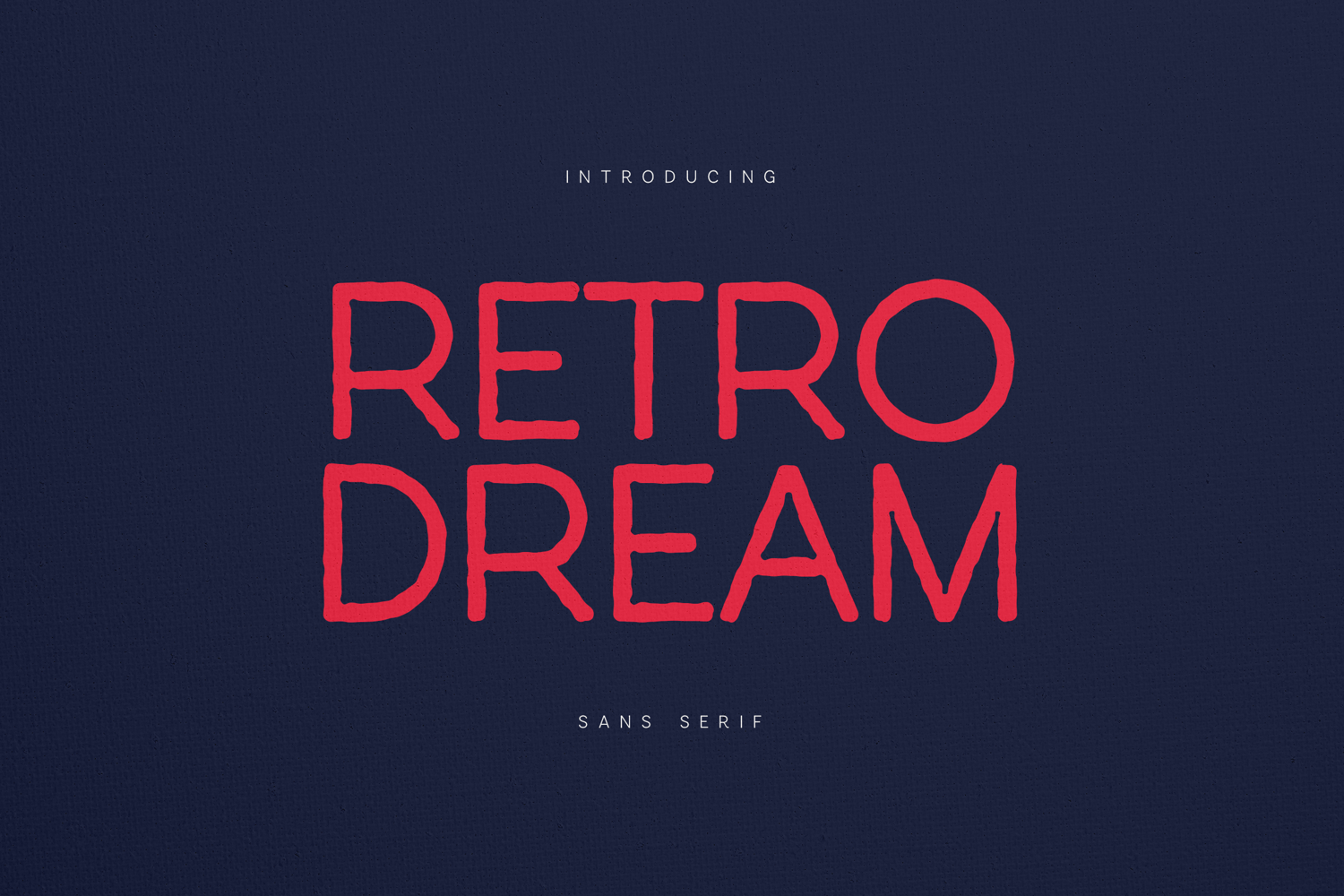
Modern Heritage Minimalist Sans Serif Font
Retro Dream is a playful handmade sans serif typeface inspired by vintage posters, soft 70s curves, and nostalgic editorial design.
It blends organic stroke variation with clean readability, making it perfect for branding, packaging, posters, album covers, social media, and creative typography projects.
Designed with personality and warmth, Retro Dream feels expressive yet approachable — ideal for bold headlines, lifestyle branding, retro aesthetics, and artistic layouts.
If you’re looking for a modern retro font with handmade character and timeless charm — Retro Dream delivers warmth, softness, and personality in every letter.